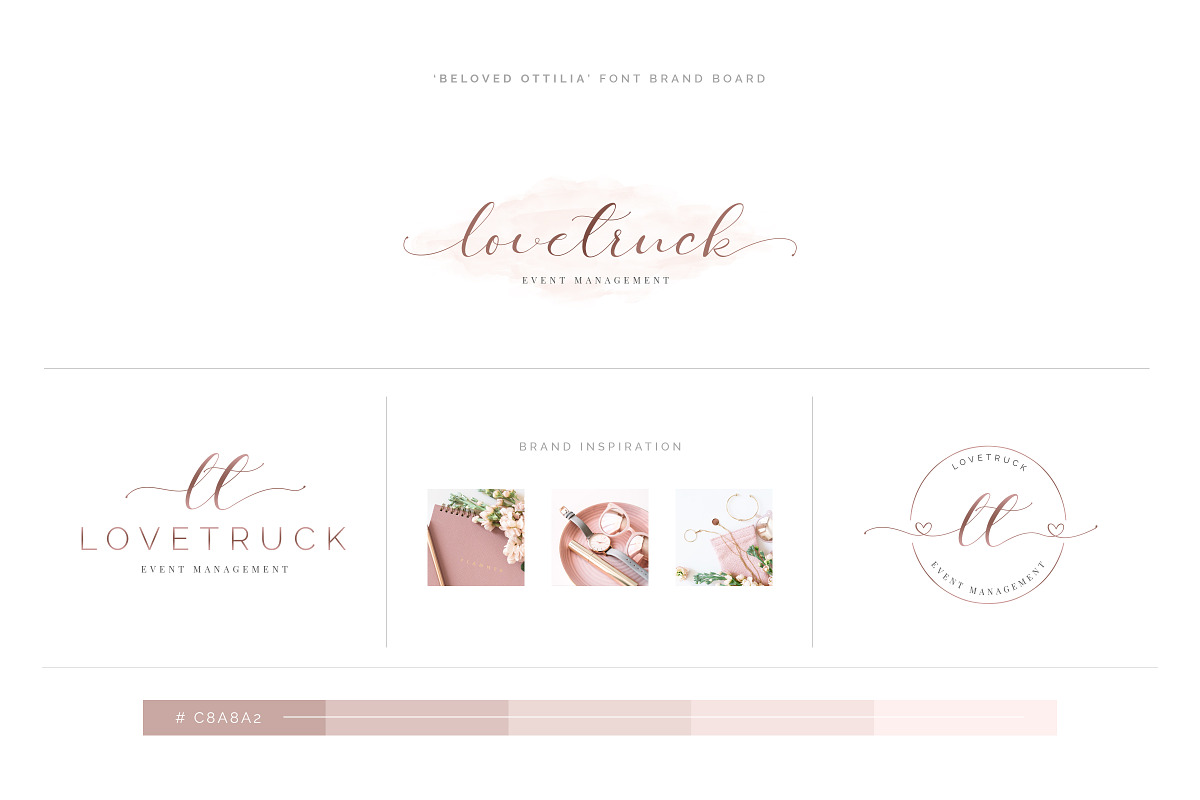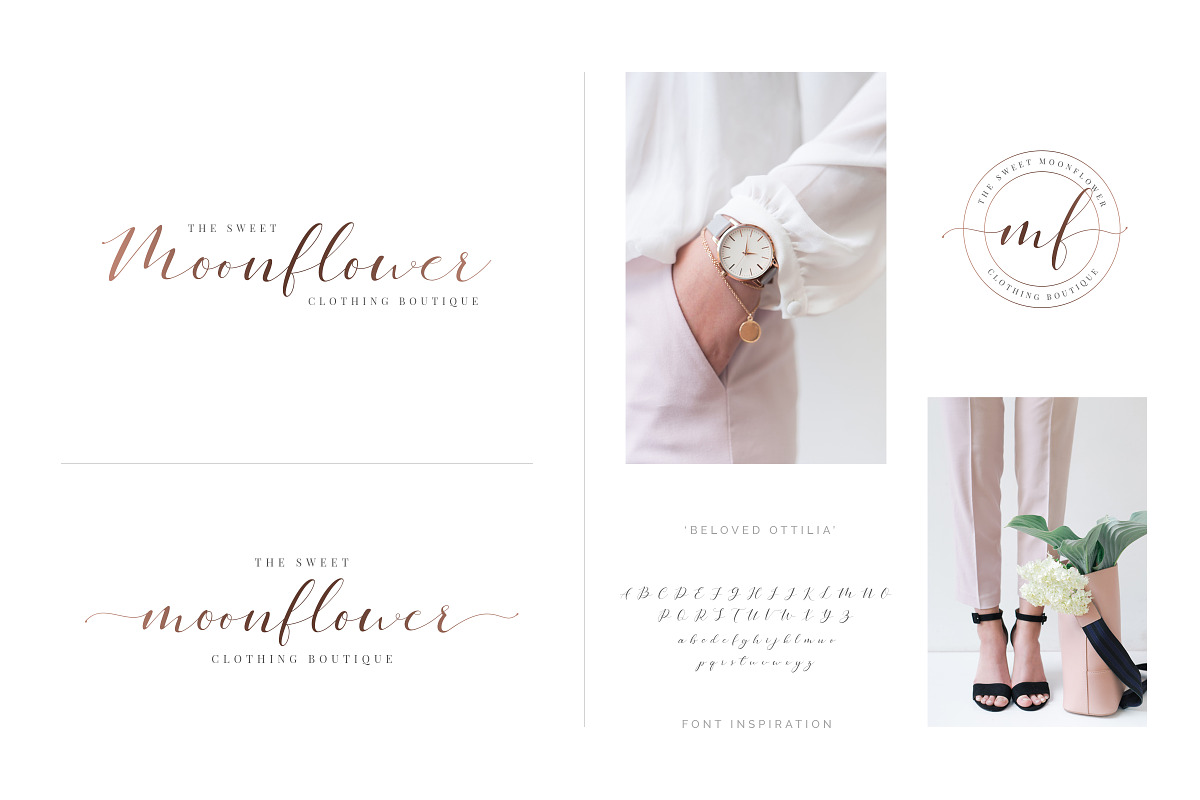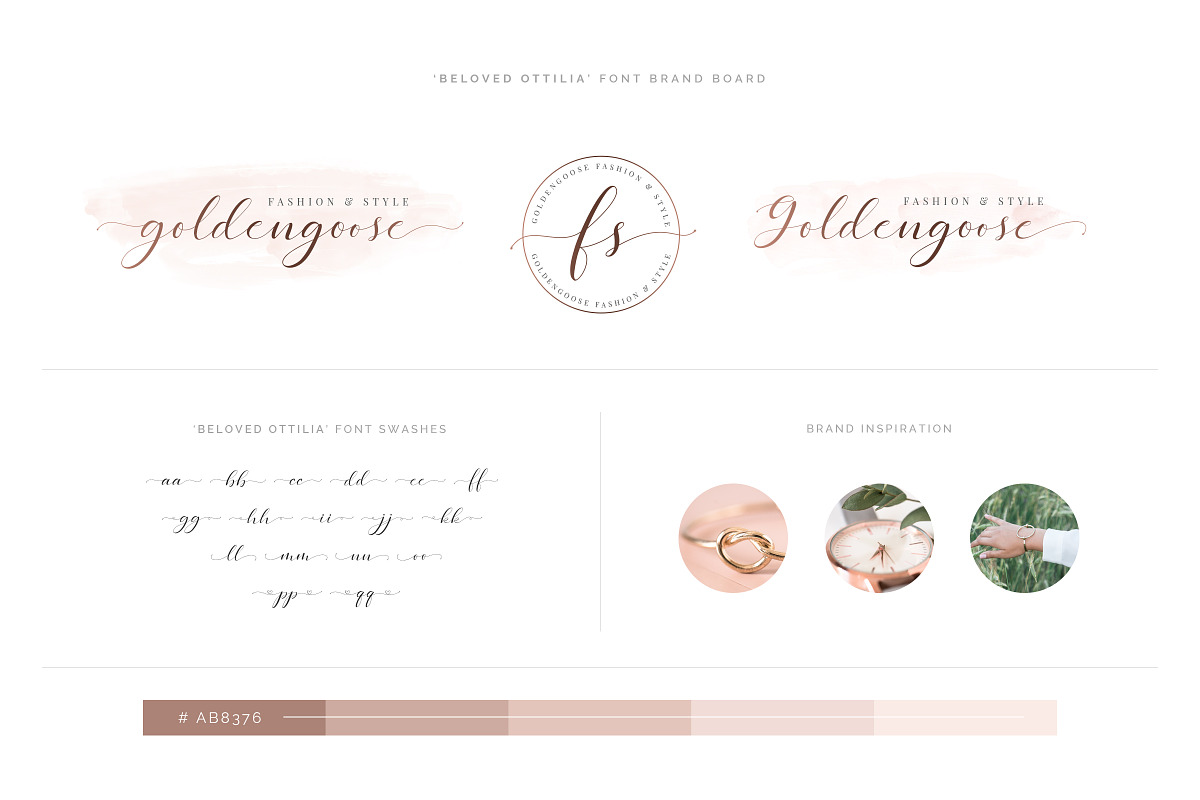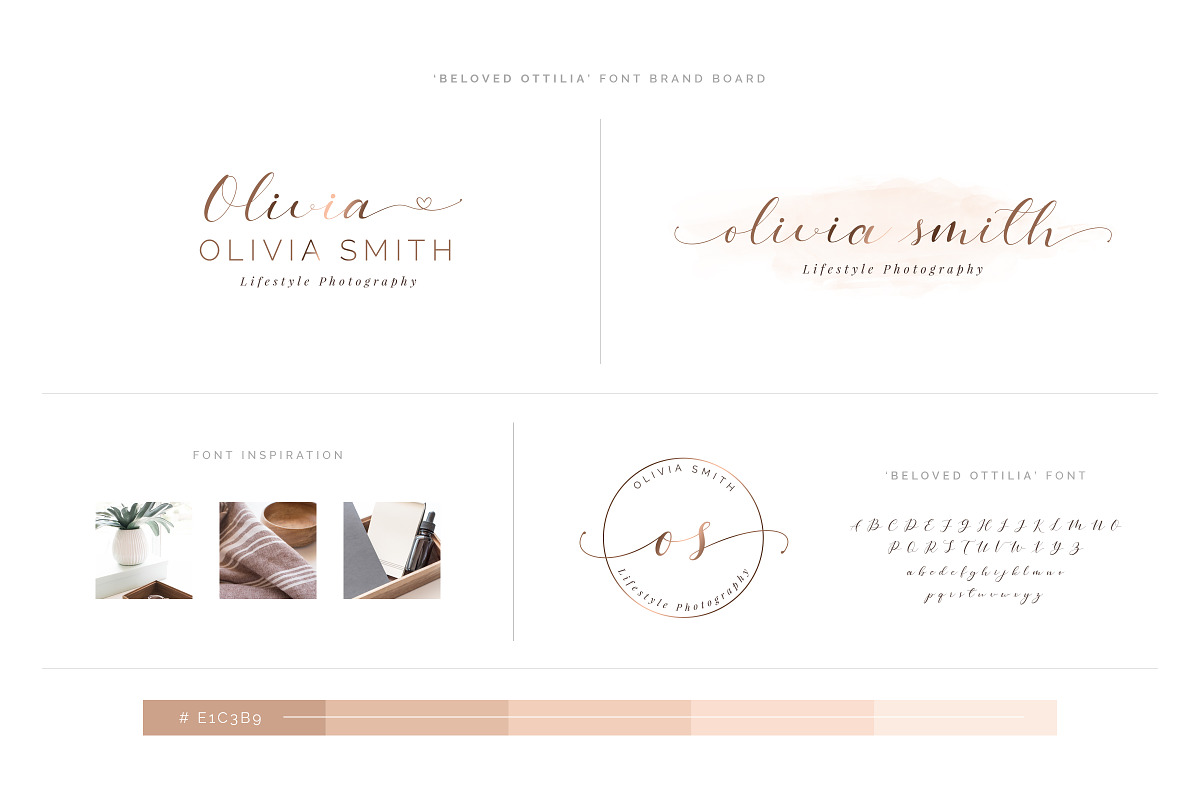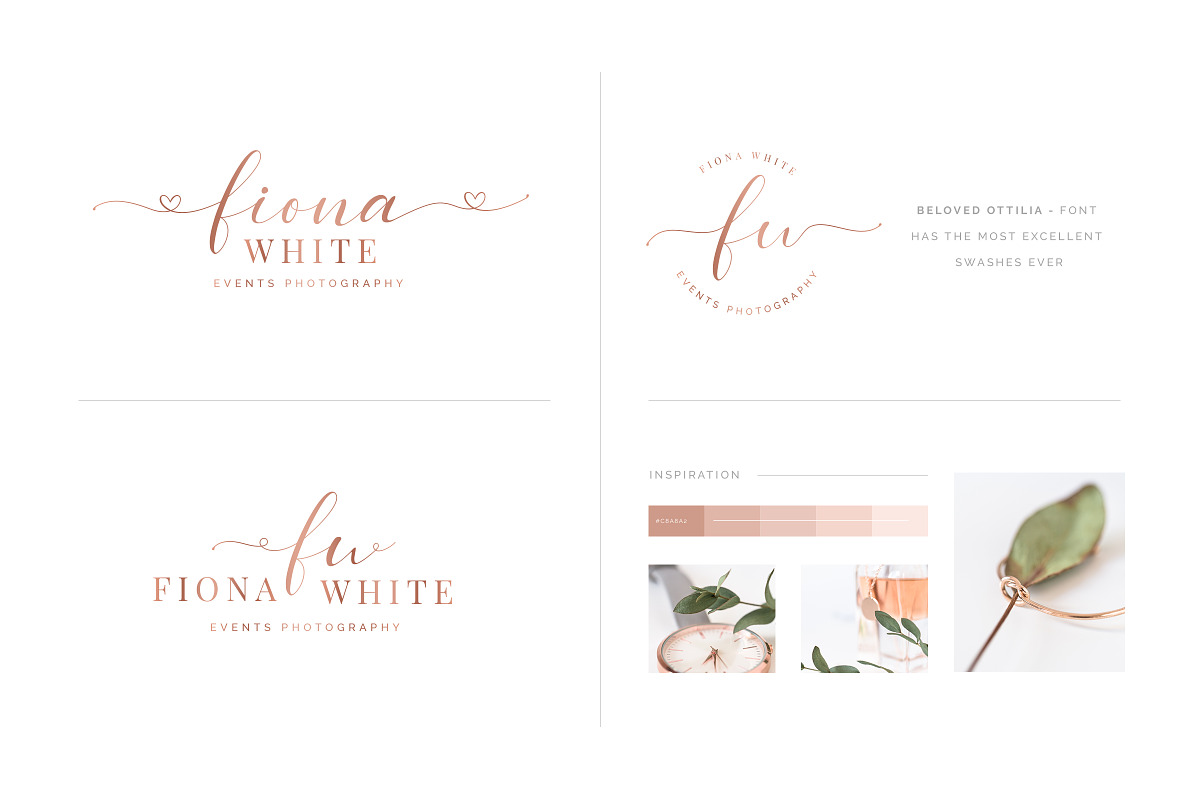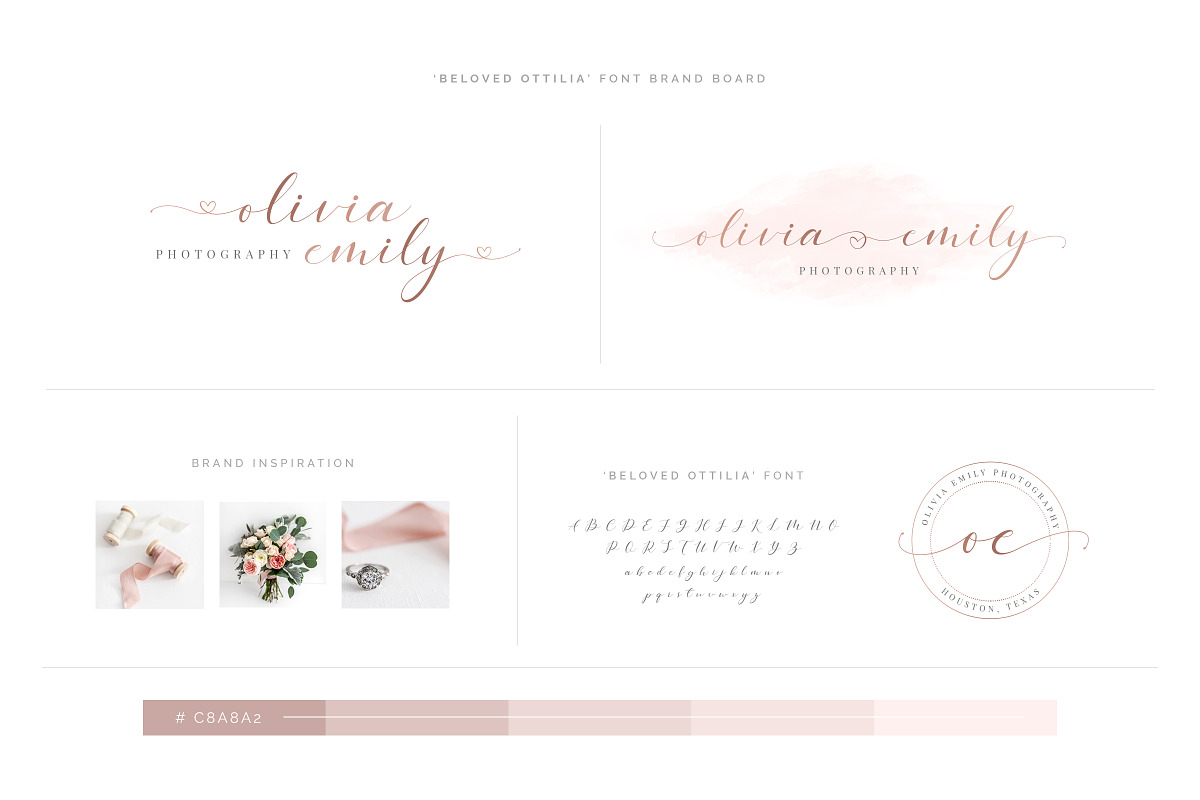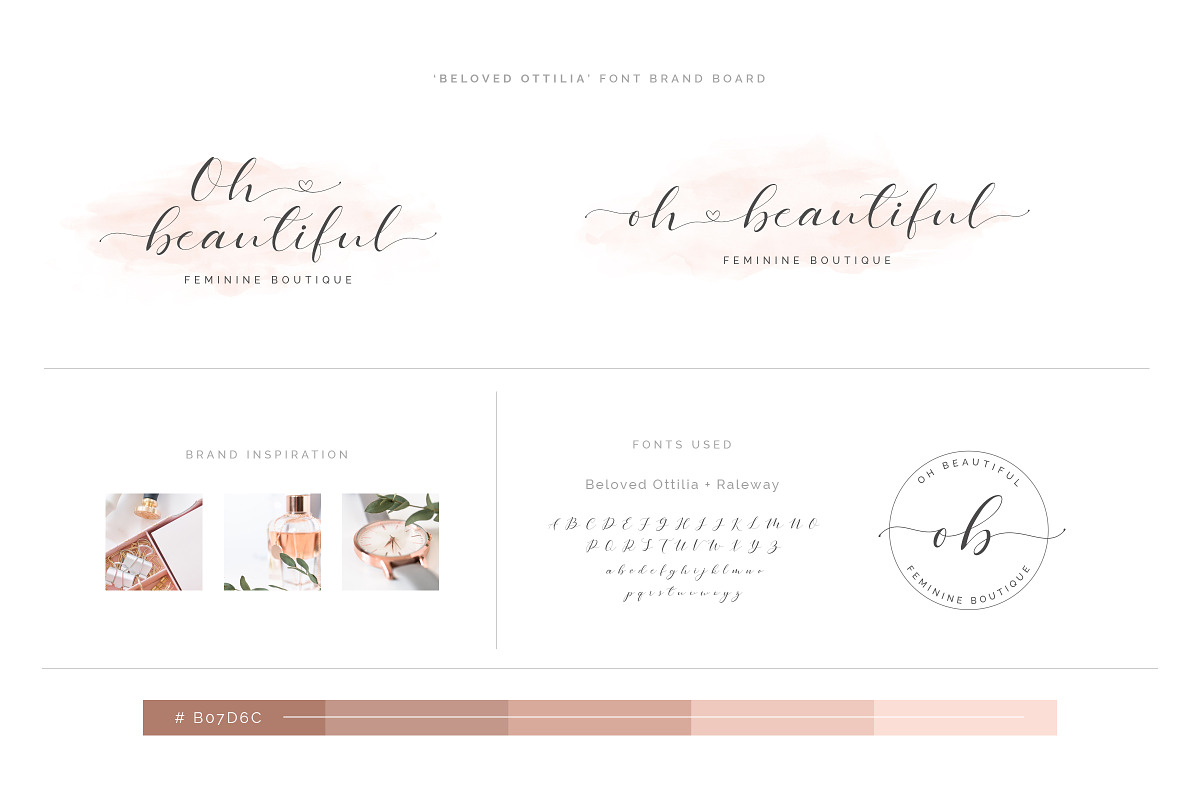
Beloved Ottilia Font + Free Logos
The font is so high in quality, that you can use any text at any size, Make be for your shop or blog header.
Every logo sets have three types of logo: Main logo, Alternate Logo and Submark Logo.
It's a Modern Calligraphy Font Pack with Premade Branding Logos.
Full set of lowercase and uppercase alternatives, numerals, punctuation
Four stylistic beginning and end swashes for all charterers
Two stylistic heart connection swashes for all charterers
Standard and Discretionary ligatures: bb, dd, ee, ff, ll, oo, pp, ss, th, tt
Multilingual support: àáâãäåçèéêëìíîïðñòóôõöøùúûüýÿąćęłńśšźżžÀÁÂÃÄÅĄÇĆÈÉÊËĘÌÍÎÏÐÑŃŁÒÓÔÕÖØÙÚÛÜŚŠŸÝŹŻŽß